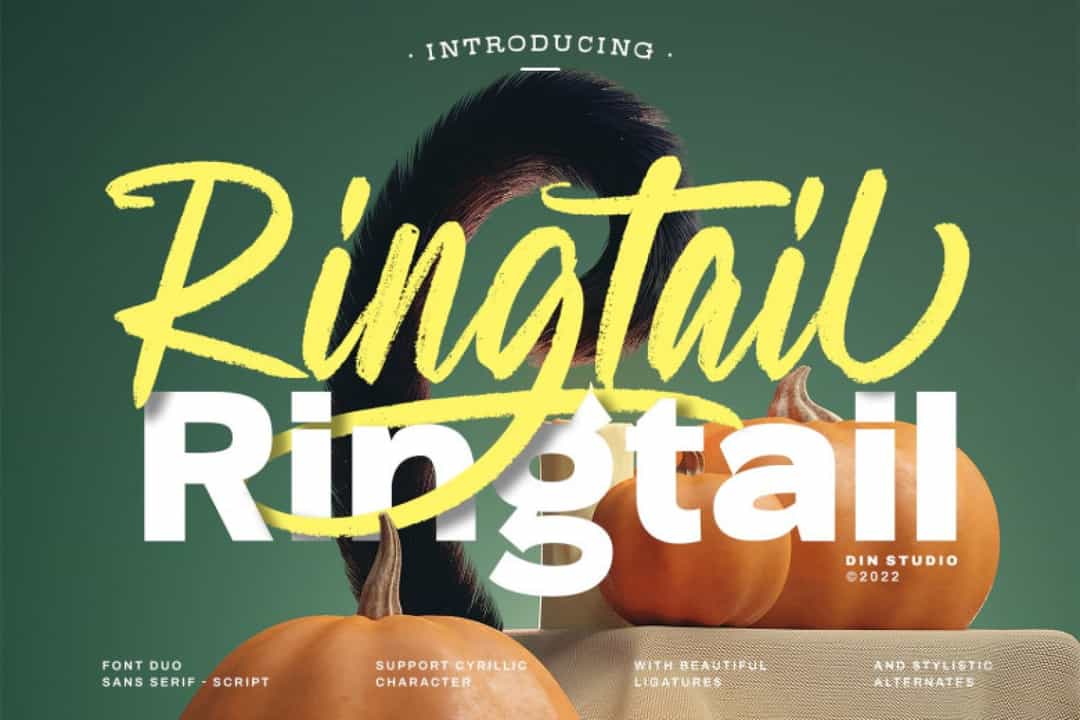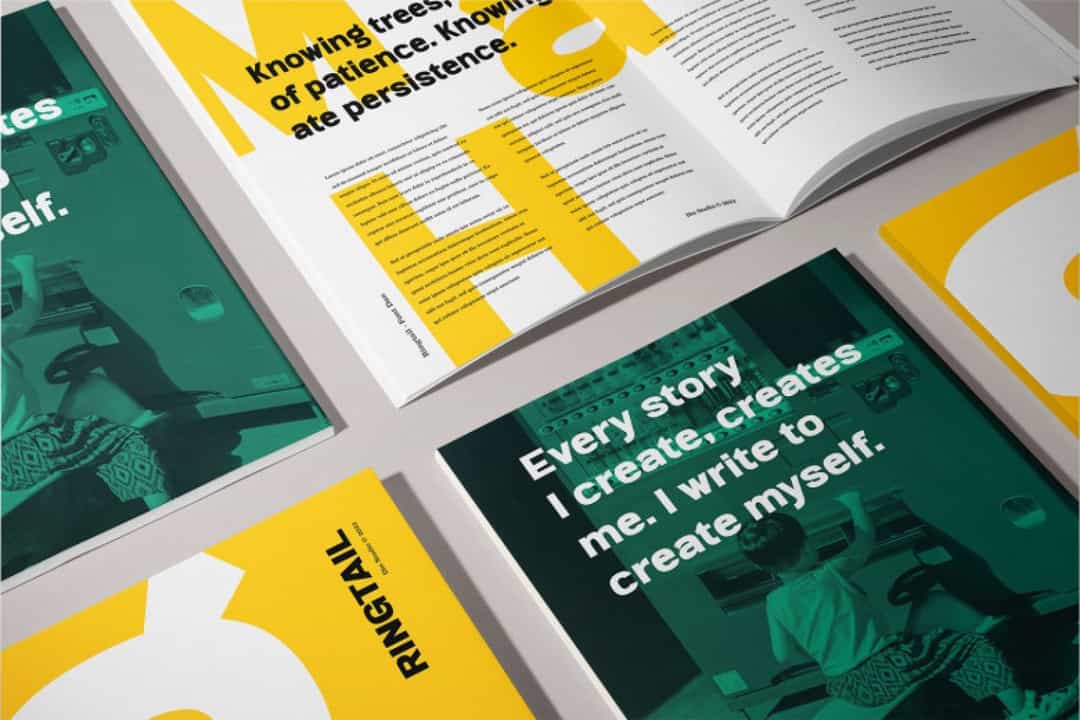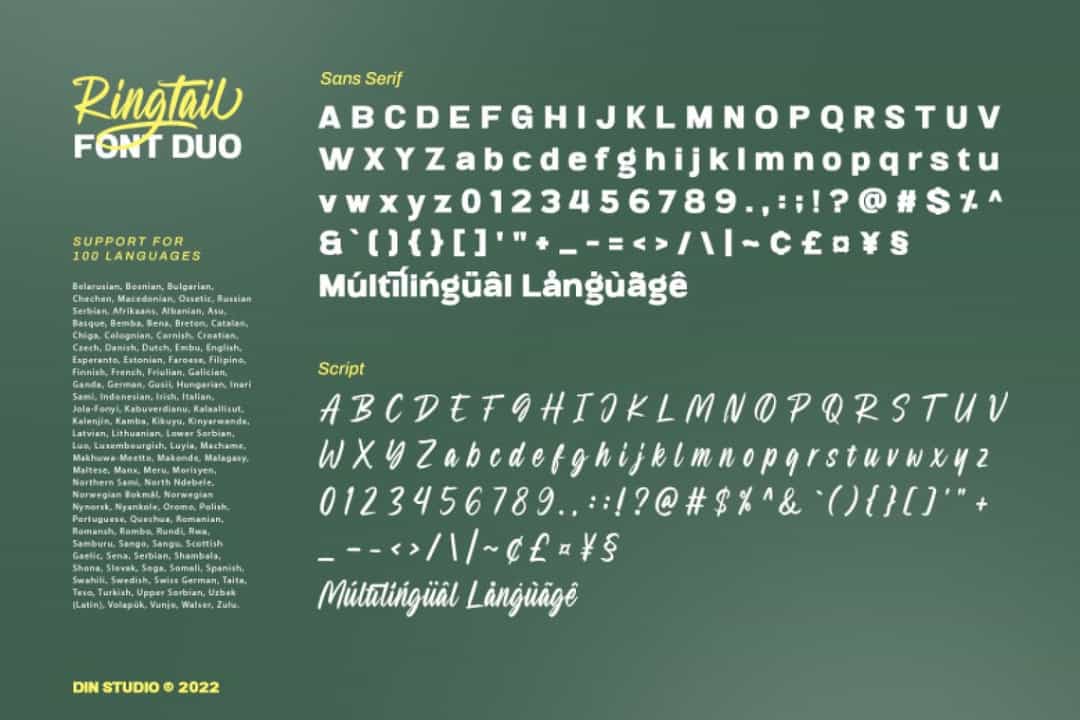
Discover Ringtail Font, part of the Sans Serif collection—a versatile and unique font perfect for adding a personal touch to your projects. Download it for free and enjoy crafting designs with style, from invitations to social media posts. This font is available exclusively for personal use, giving you the freedom to create without limits. Unlock your creativity with Ringtail Font today!
Ringtail font features two styles that can be used together or independently, including script and sans serif fonts. Sans serif features clean lines without curvy edges while script is defined by curvier ink or water paint textures which add curvier lines to every letter and letter patterns on the background.